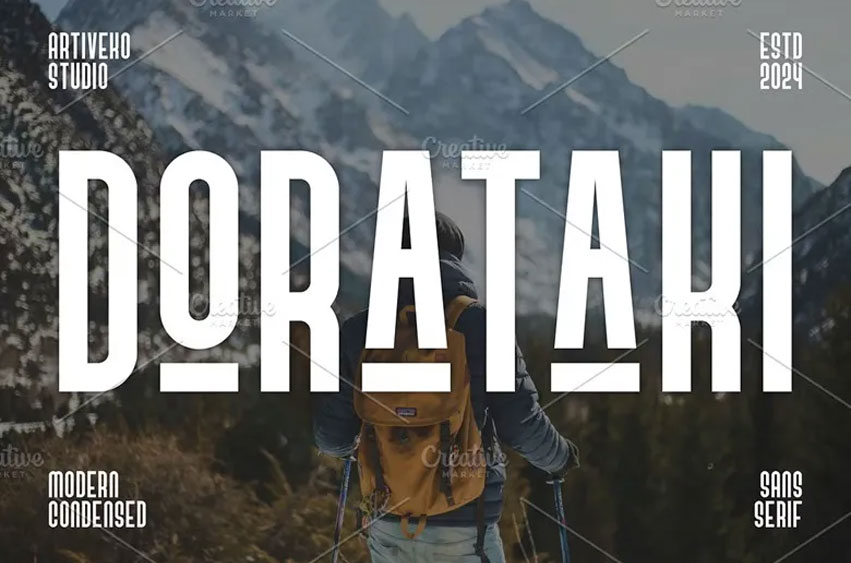
Dorataki Font is a compressed exclusively sans serif font by Iwan Alwan, distinguished by its individualistic and innovative design of lettering as opposed to regular typography. Thanks to its small size and clean, contemporary aesthetic, Dorataki is ideal for logos, advertisements, and newsletter layouts in which visuals need to be as big as possible. Providing language support, discretionary and discretionary ligatures, stylistic sets, and so on.
Dorataki offers flexibility while offering a striking, unique appearance to any endeavor, and is particularly suited to those that require a high degree of individuality in a small package. These fonts are good for product logos, wedding card logos, clothing brand logos, Vintage designs, and much more.